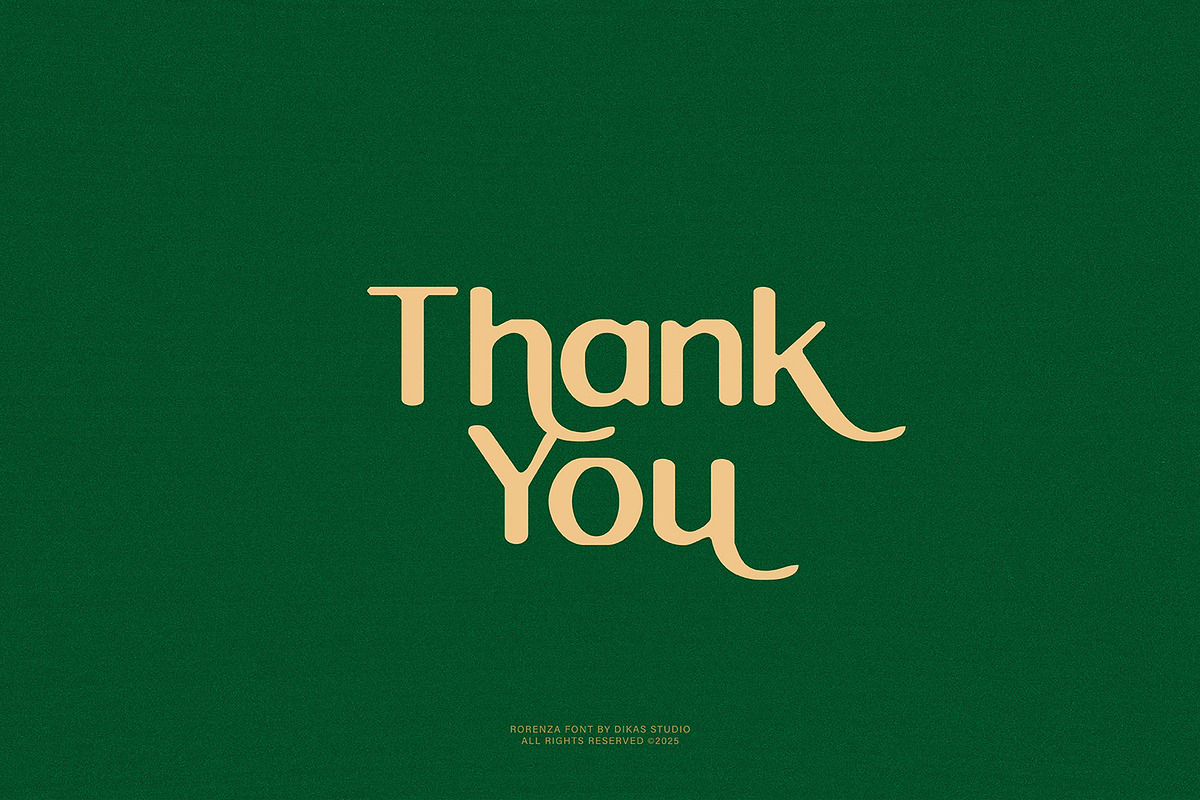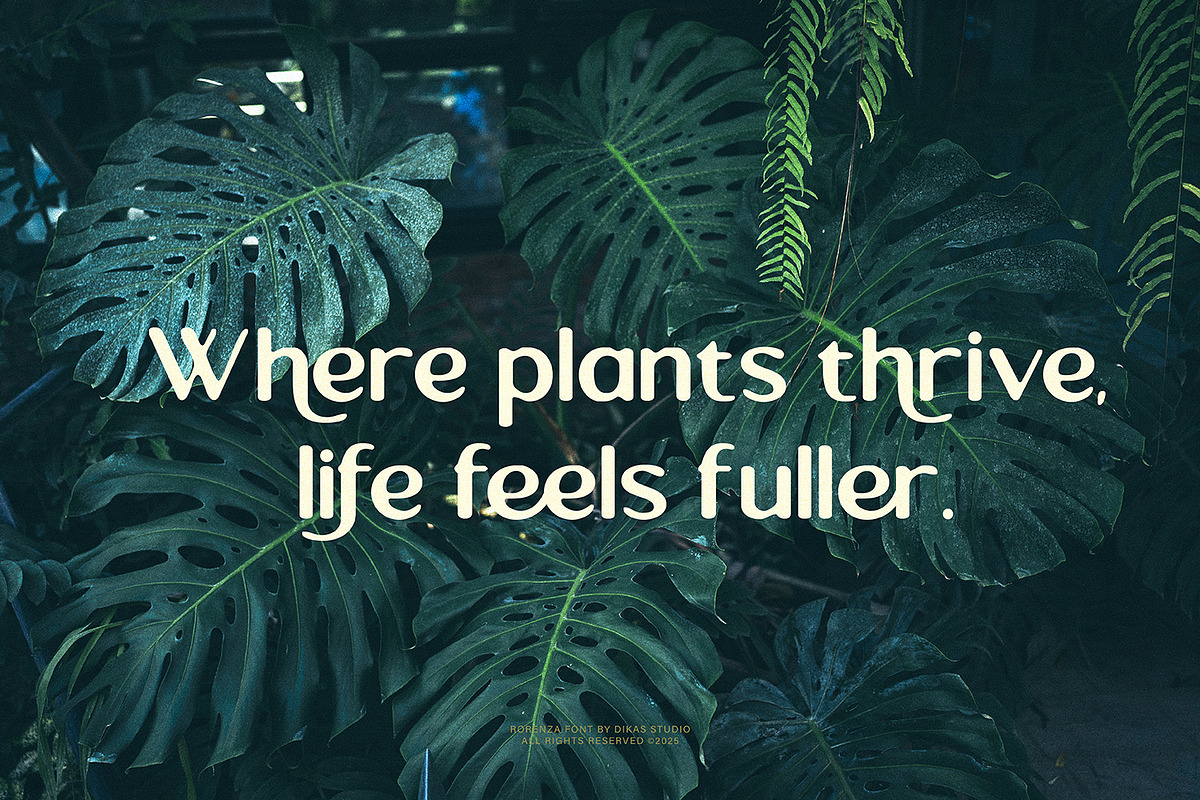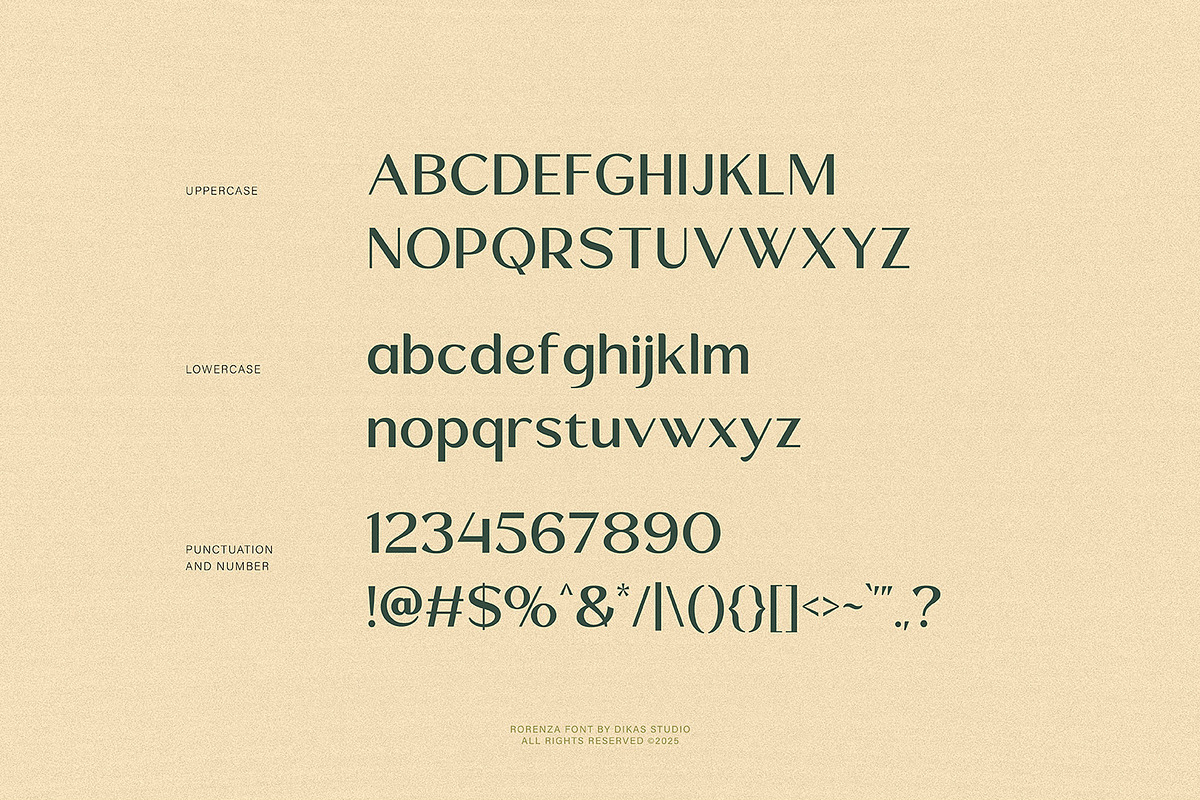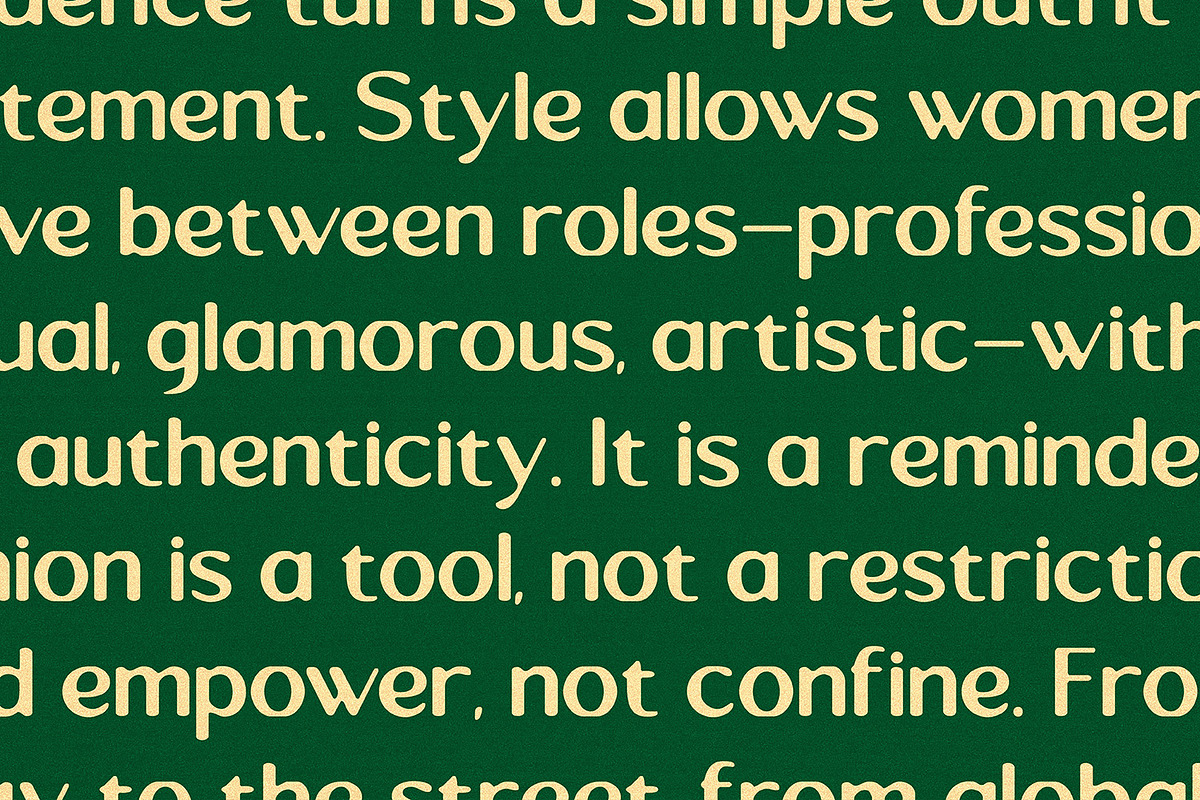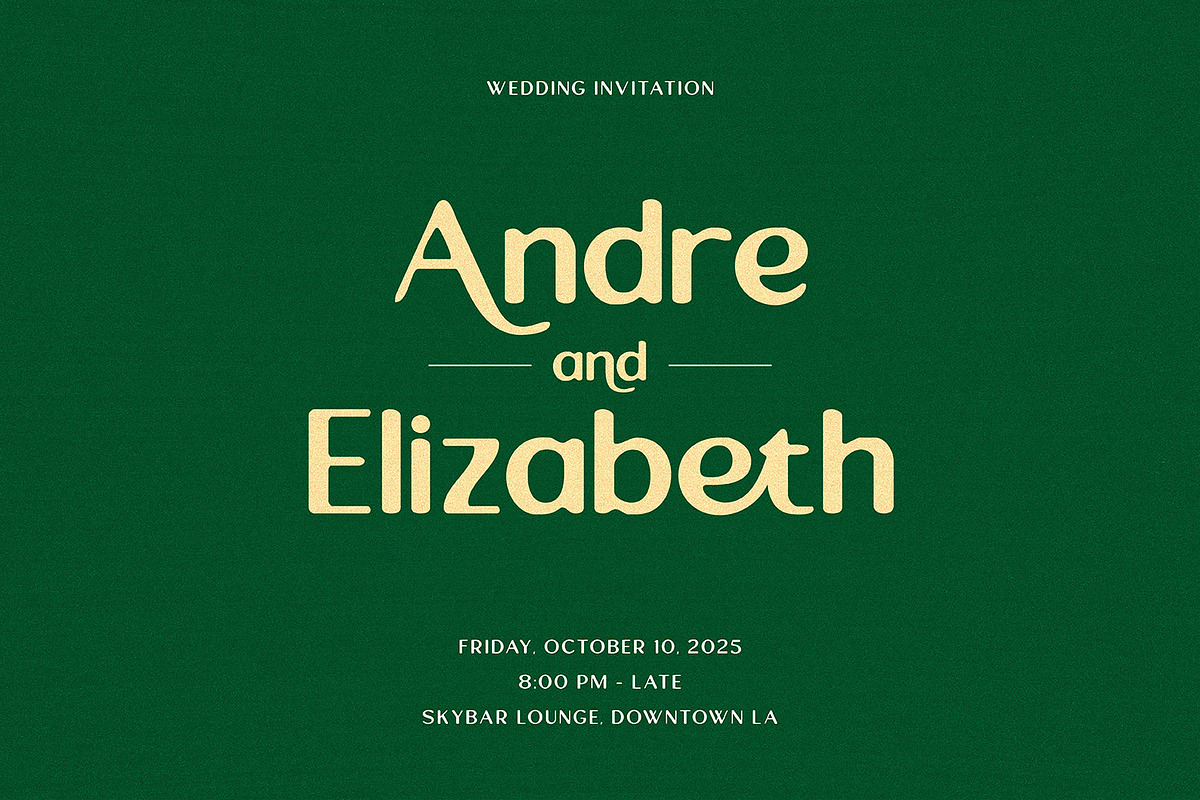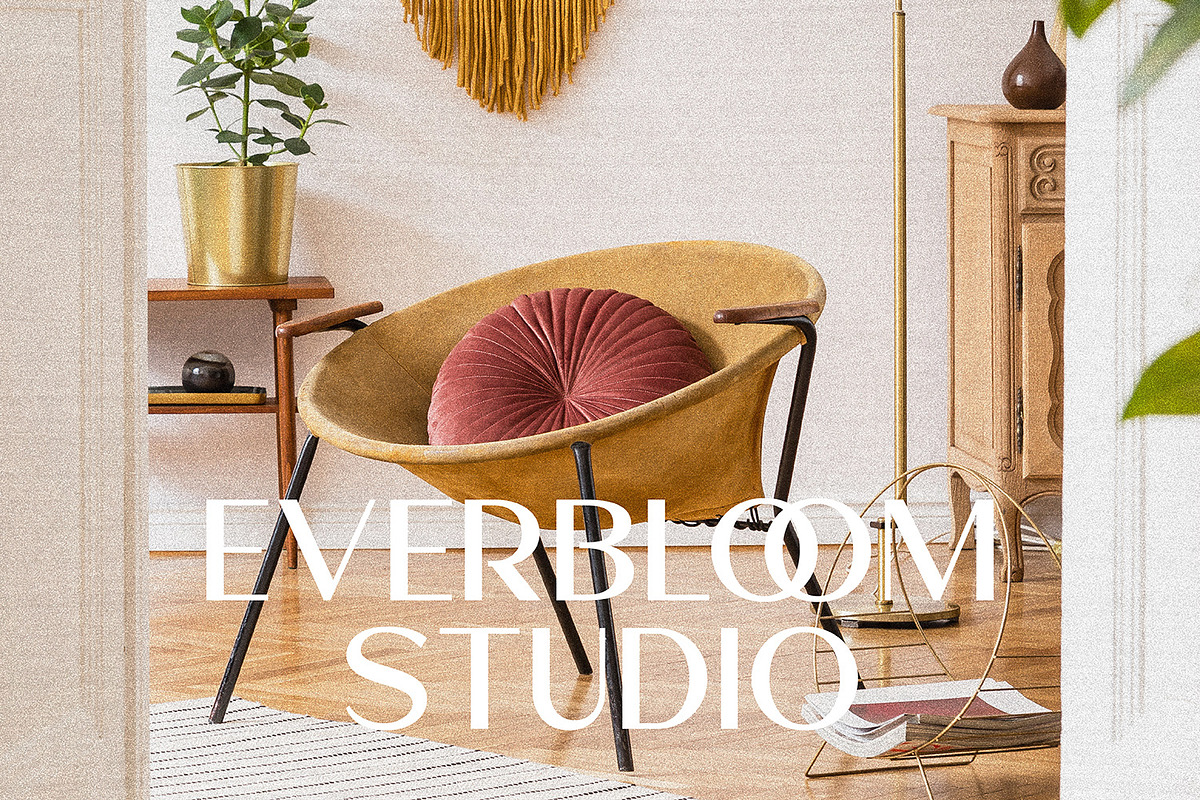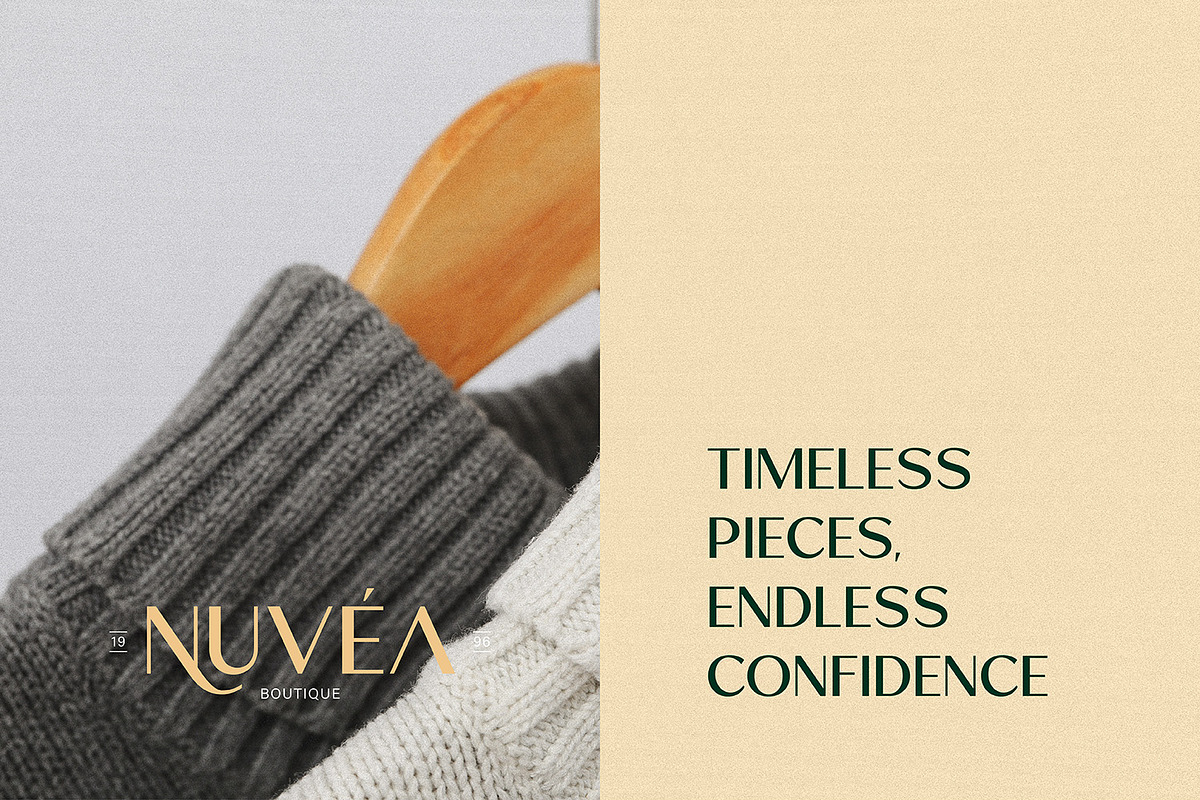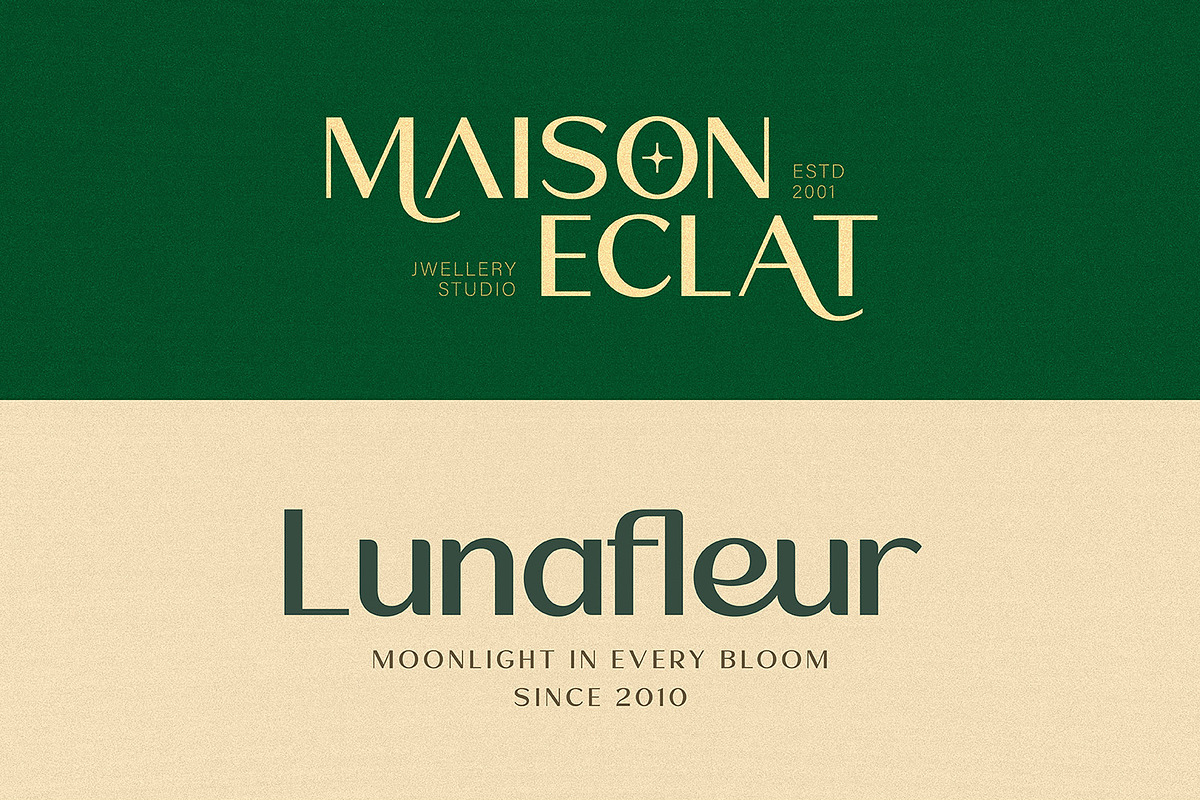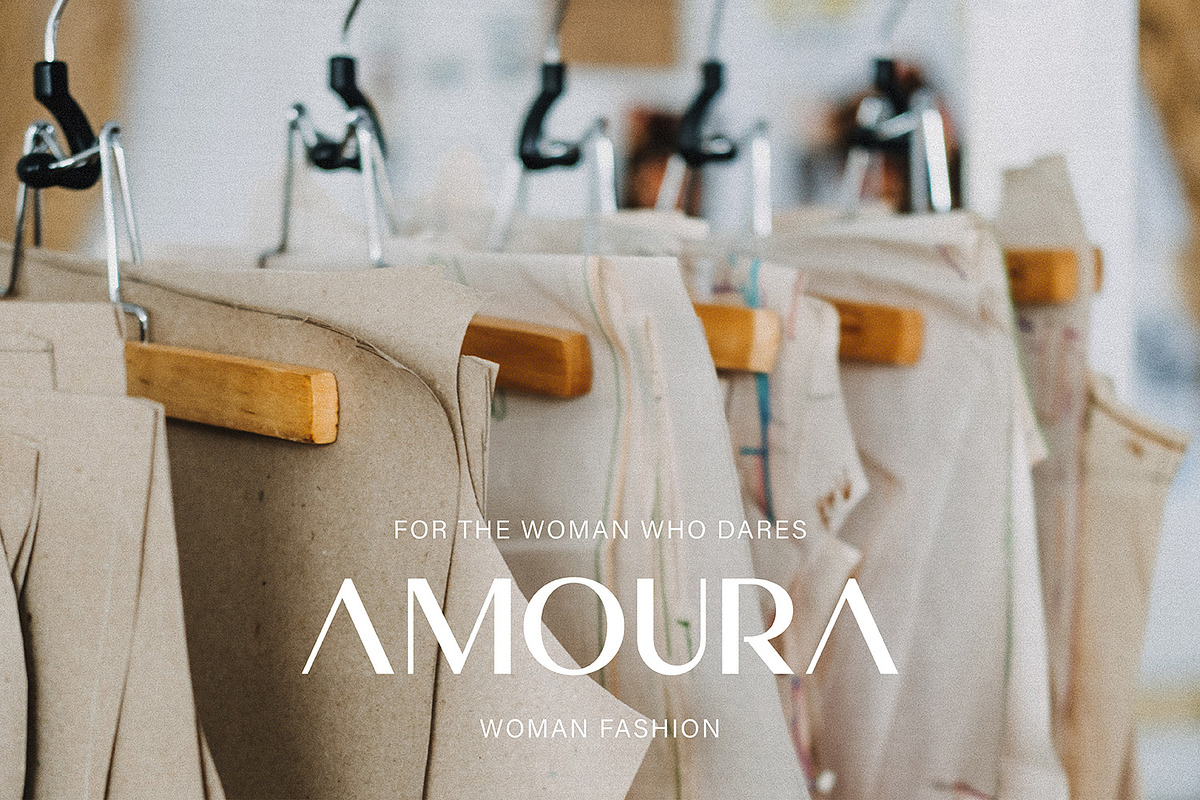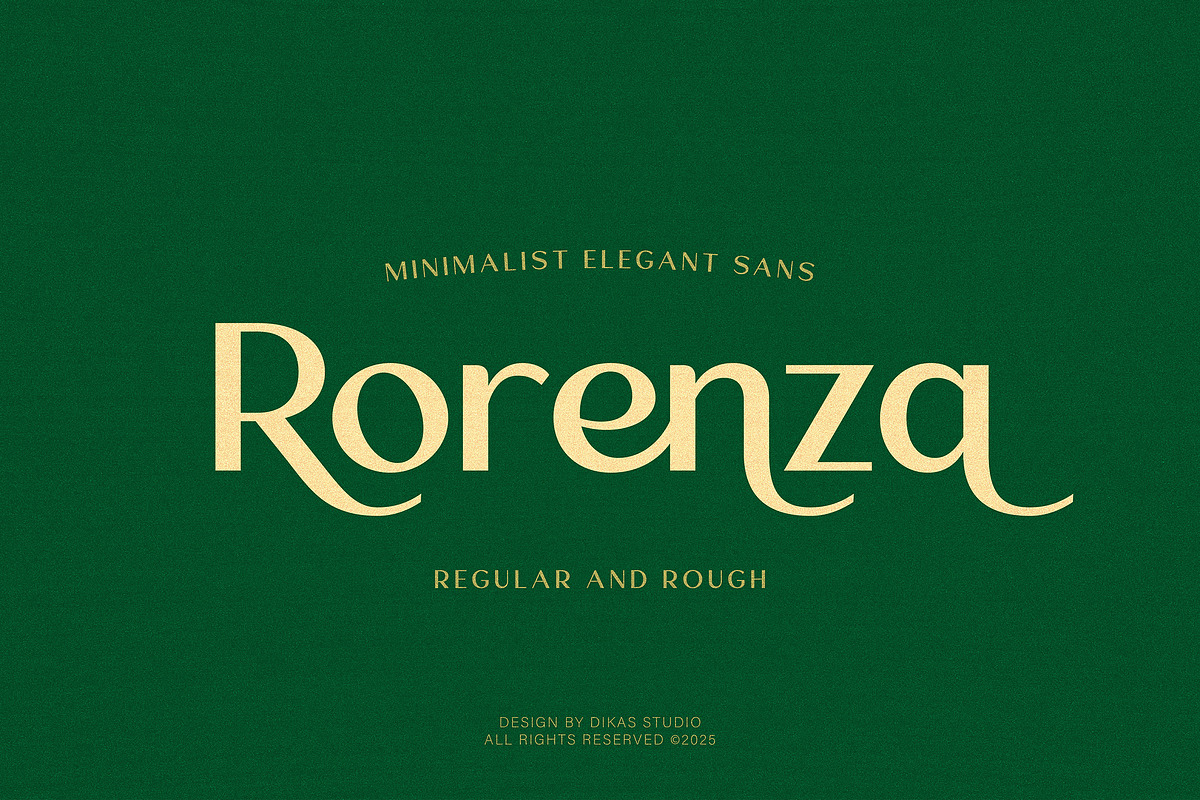
Rorenza
Reorenza is an elegant sans serif font that blends modern simplicity with refined curves. Designed for versatility, it looks stunning in logos, headlines, posters, and editorial layouts. Its clean structure and balanced spacing ensure perfect readability across all sizes and media.
Available in Regular and Rough styles, Reorenza gives you creative freedom — from polished modern designs to those with a handcrafted touch. This modern sans serif typeface is ideal for branding projects that aim for a timeless, sophisticated look.